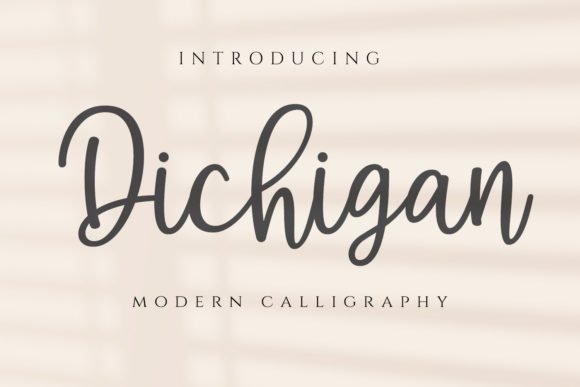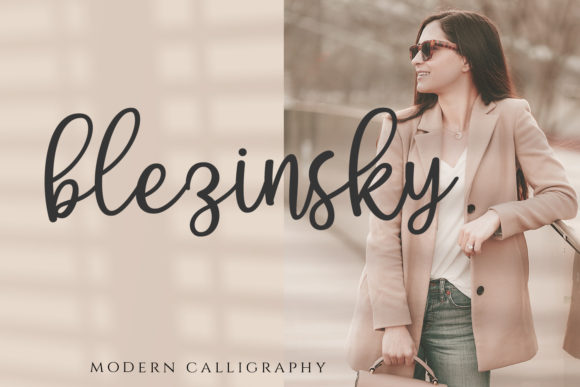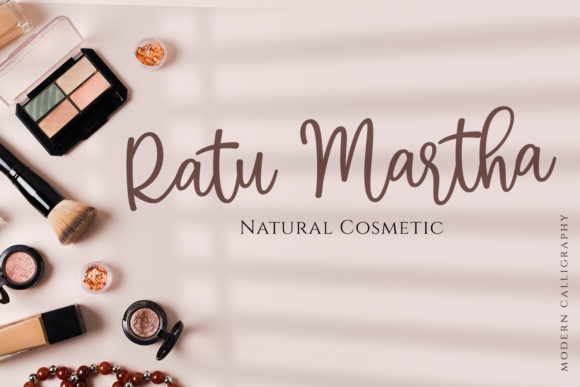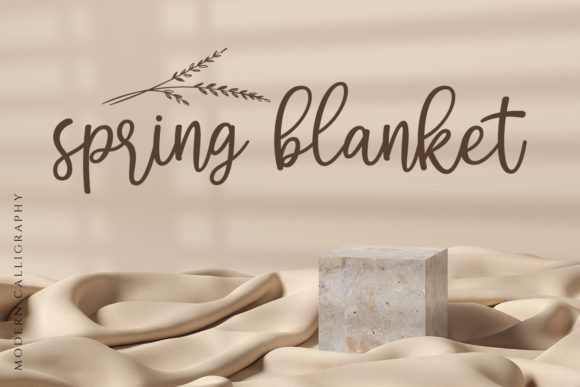
The Perfect Blend of Elegance and Versatility: Introducing Dichigan Font
You’ve spent hours pouring over design inspiration, searching for the perfect font to elevate your latest project. And then, it hits you – the perfect combination of style and sophistication that sets your heart racing. For designers, finding that elusive font can be a game-changer, and today, we’re excited to introduce you to the Dichigan Font, a truly outstanding handwritten font that’s sure to capture your imagination.
With its classy calligraphic influences and contemporary feel, Dichigan Font is the perfect tool for crafty designers looking to add a touch of elegance to their work. Whether you’re creating letterheads, titles, or stationery, this versatile font is sure to impress. Its unique blend of style and sophistication makes it a valuable addition to any designer’s toolkit, and we can’t wait to explore its possibilities with you.
Dichigan Font Key Features
- Unique Characteristics: The Dichigan Font features a unique, hand-drawn design with subtle irregularities, giving it a distinctive and humanistic feel.
- Kerning and Ligatures: The font includes advanced kerning and ligature pairs, ensuring that text sets are visually appealing and easy to read.
Dichigan Font Review
I’ve had the chance to work with the Dichigan font, and overall, I’d say it’s a decent addition to any design project. ✨ One of the things that stands out to me is its versatility – it’s suitable for both body text and headings, which makes it a great option for designing articles or blog posts.
- ✨ Legibility is a strong point for Dichigan – it’s clear and easy to read, even at smaller font sizes.
- ✨ The font also has a unique, modern feel to it that can add a touch of sophistication to your designs.
However, there are some limitations to consider ⚠️. One of the main issues I’ve encountered is that Dichigan can look a bit too sterile at times – it lacks the personality and character that some other fonts have.
- ⚠️ It may not be the best choice for projects that require a lot of emphasis or drama.
- ⚠️ Additionally, some users may find the font to be a bit too simplistic or basic.
Overall, I’d say Dichigan is a solid choice for designers who want a clean, easy-to-read font that’s suitable for a wide range of projects.
Tips for Getting the Most Out of Dichigan Font
Use Dichigan Font for creative and artistic designs, such as posters, flyers, and brochures.
Combine Dichigan Font with other fonts to create a unique and eye-catching typography.
Dichigan Font is ideal for:
Poster and flyer designs.
Brochures and catalogs.
Business cards and letterheads.
Artistic and creative projects
Alternatives to Dichigan Font
Lobster Font is a cursive script font that is ideal for creating a romantic, elegant, or vintage look in designs. It is perfect for wedding invitations, greeting cards, and other personal projects.
Compared to Dichigan Font, Lobster Font has a more refined and sophisticated look, making it suitable for formal designs. It also has a wider range of font sizes and styles, making it more versatile.
Pacifico Font is a modern script font that is ideal for creating a clean, minimalist, and stylish look in designs. It is perfect for logos, branding, and packaging designs.